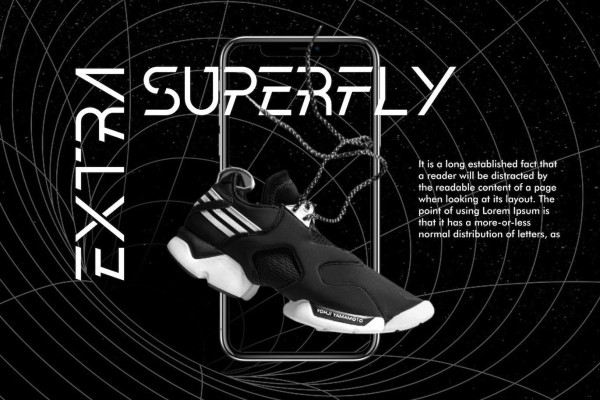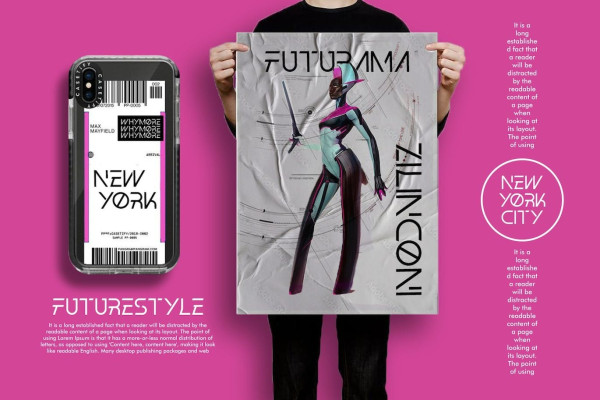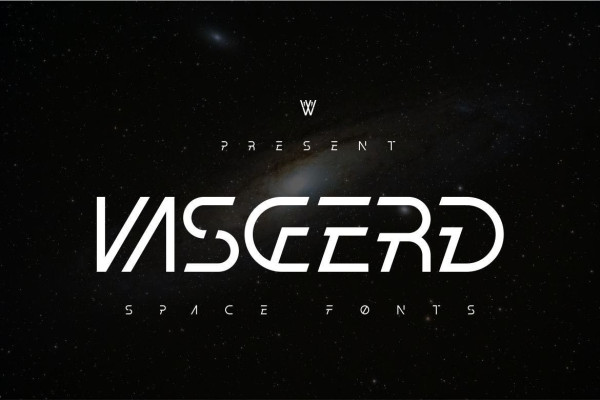
Vasgerd Font
Vasgerd Font, is a font tackling Themes of space, technological advancement, cyberpunk, sharpness, and decoration in a form that portrays minimalist splendor in a single font.
VASGERD is inspired by the Avengers, Star Wars, Star Trek and many other sci-fi movies that reference the creation of the BUSTER AVENGER FUTURISTIC font.
VASGERD is said to refer heavily to Modern Modern Fonts, CYBERPUNK Fonts, Sci-Fi Fonts, Galaxy Fonts, Futuristic Elegant Fonts, Futuristic Sans Fonts, and Space Fonts.